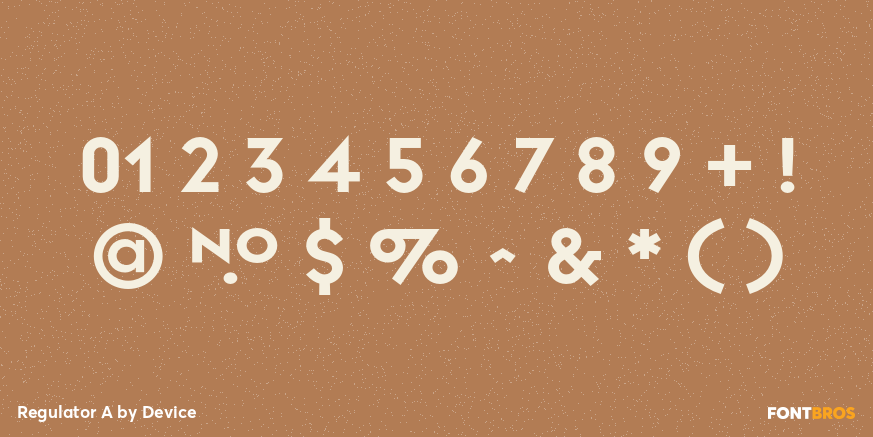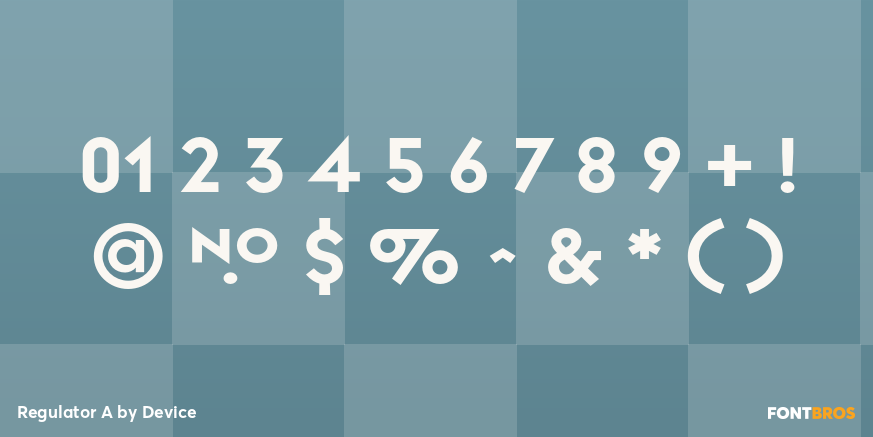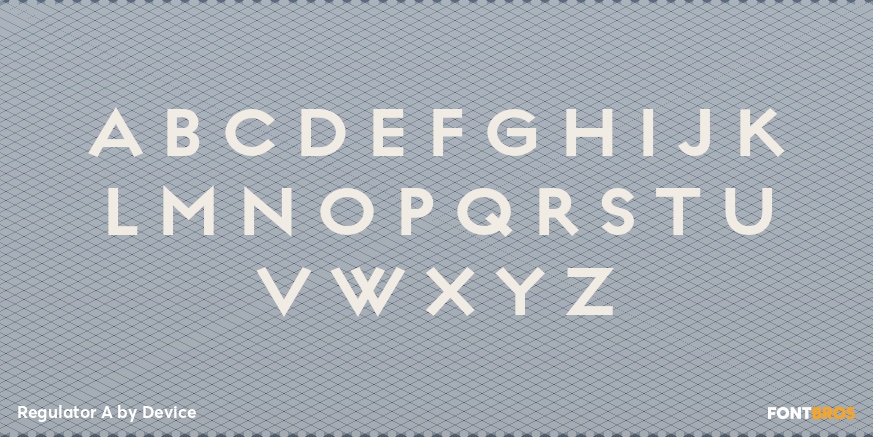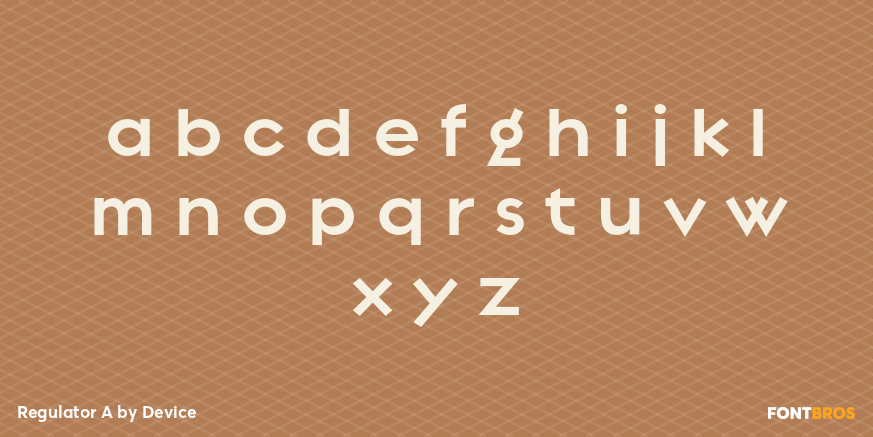
Regulator A
Font Family by Device
Regulator A is a five-style sans serif family from Device with a sharp, retro-modern feel. Its listing in the New Wave (1980s) category points to a distinctly period-inspired voice, while the clean construction keeps it usable for contemporary design work.
The family includes Light, Light Italic, Cameo, Bold Italic, and Bold, giving you a compact range of weights and textures to build contrast without leaving the set. That mix makes it a strong option for branding, posters, packaging, editorial accents, and other display-driven layouts where you want a graphic, stylized look with a clear 1980s edge.